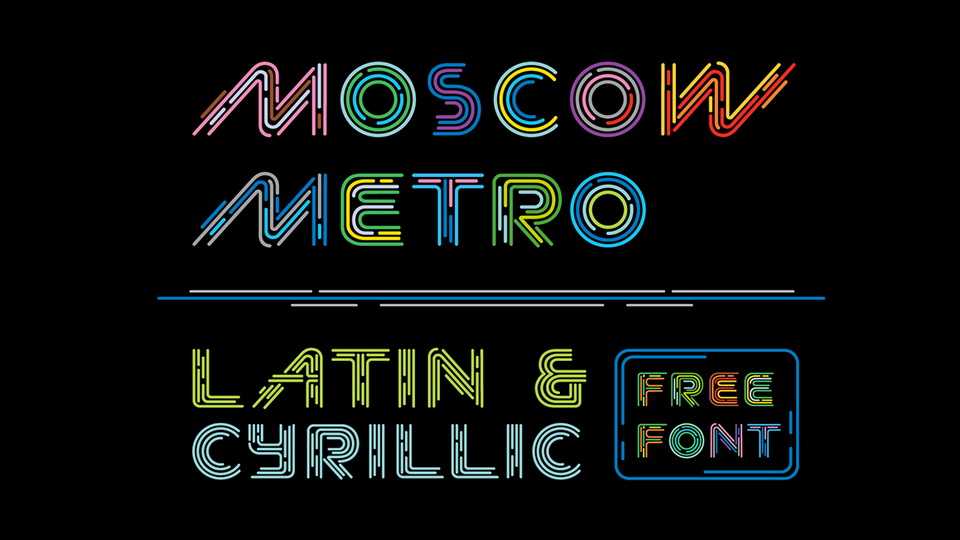
Download Moscow Metro font, a multi-line display typeface in two styles, inspired by the Moscow underground map. Moscow Metro is ideal for posters and headlines, neon signage and other artworks.
Designer: Nadira Filatova